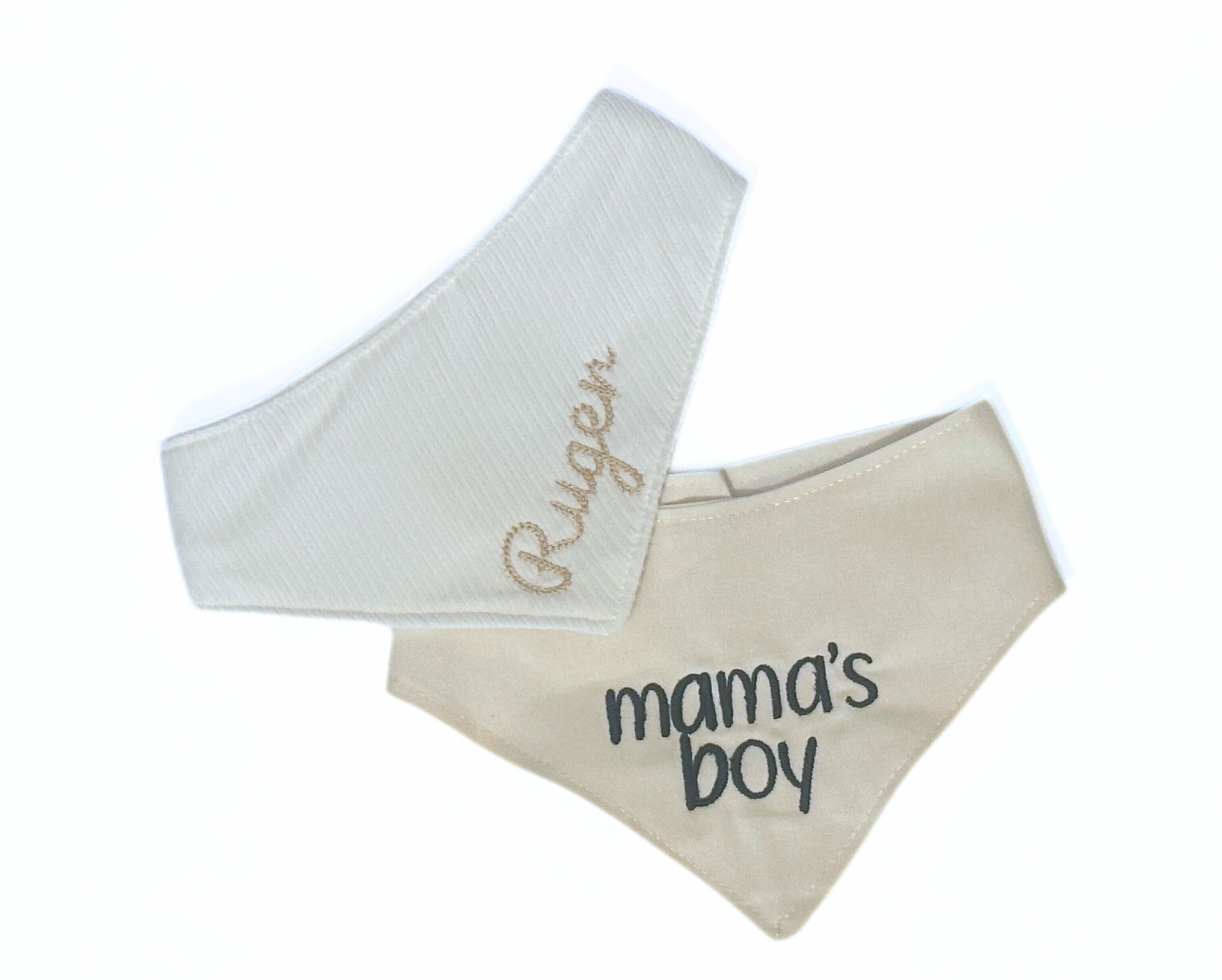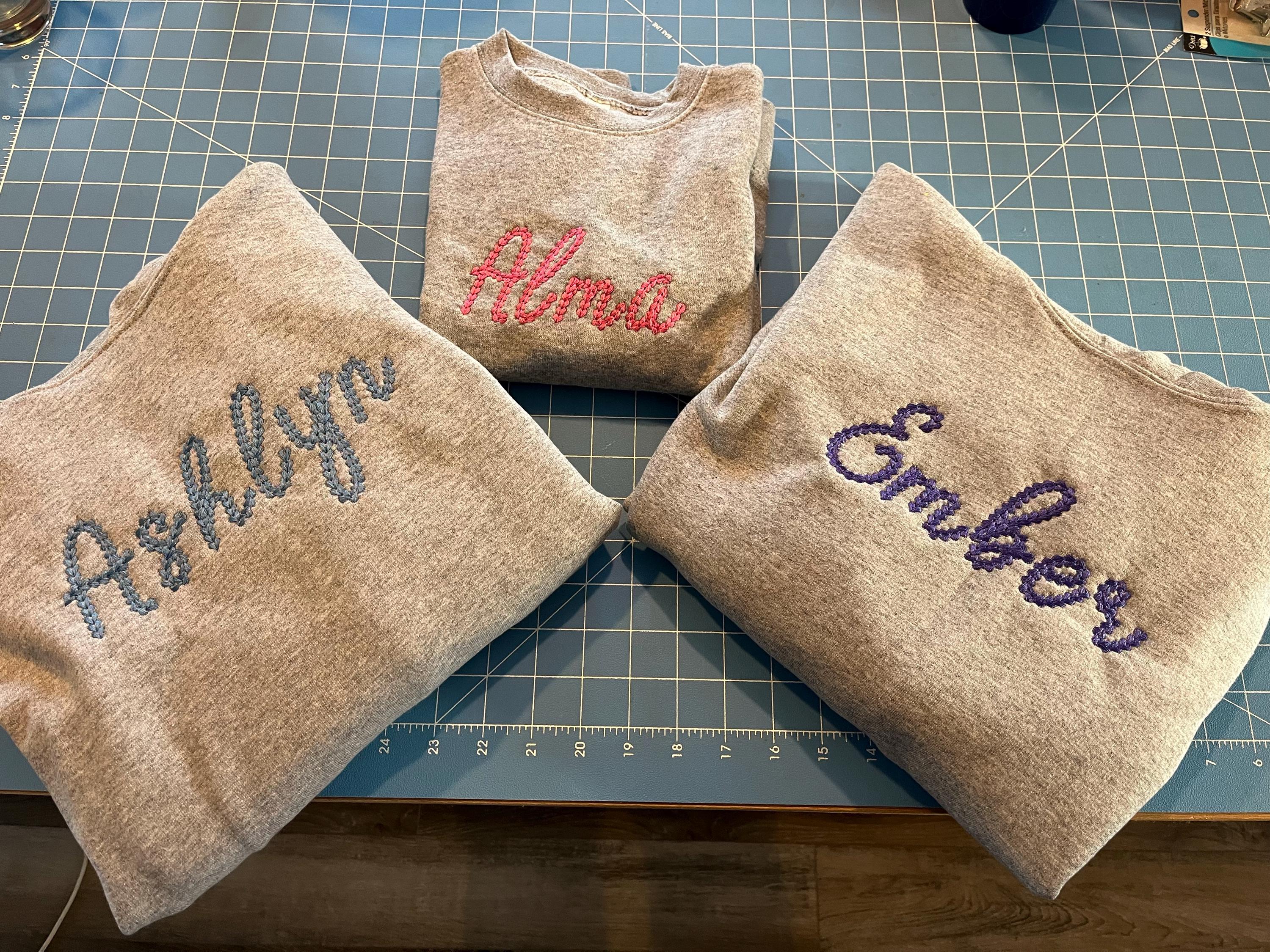
Extra Bold Chain Stitch Handwritten Font Alison
Give names and monograms cozy, bold handwritten charm.
Alison Handwritten Font is an extra-bold chain stitch embroidery font designed for bold, knitted-effect lettering. This handwritten chain embroidery font includes uppercase, lowercase, numbers and punctuation, making it a full bold chain alphabet for monograms and personalization. Use the extra bold chain stitch Alison for cozy sweater-style monograms, bold chain alphabet name tags, or a script monogram on towels and apparel. The design files come in multiple BX formats for easy use and deliver a strong single-color chain stitch look that stands out on knits and woven fabrics.
This is an extra-bold chain stitch font designed as a single-color chain effect; the sample stitch count is 3782, producing a strong knitted/script texture ideal for bold lettering.